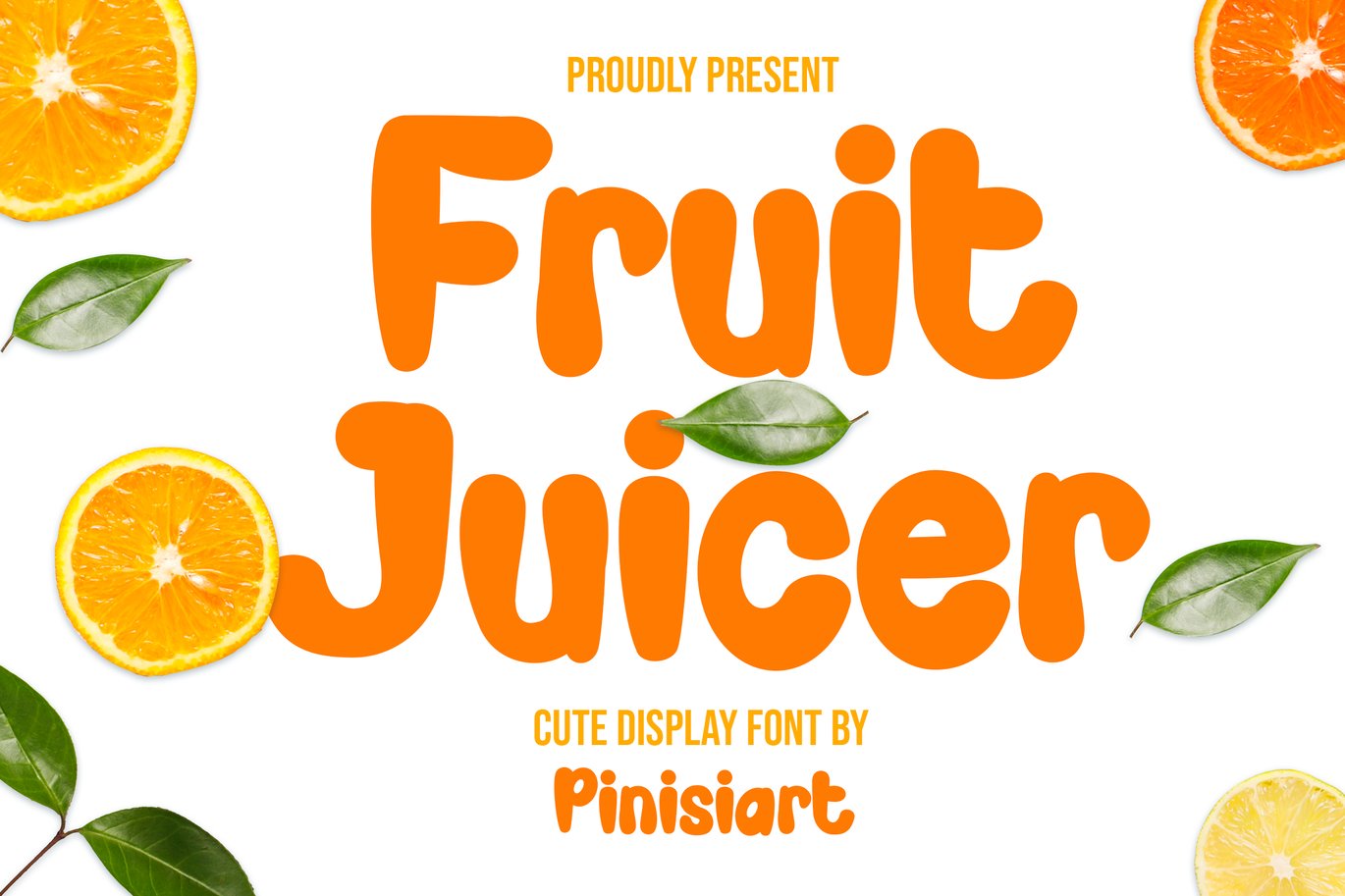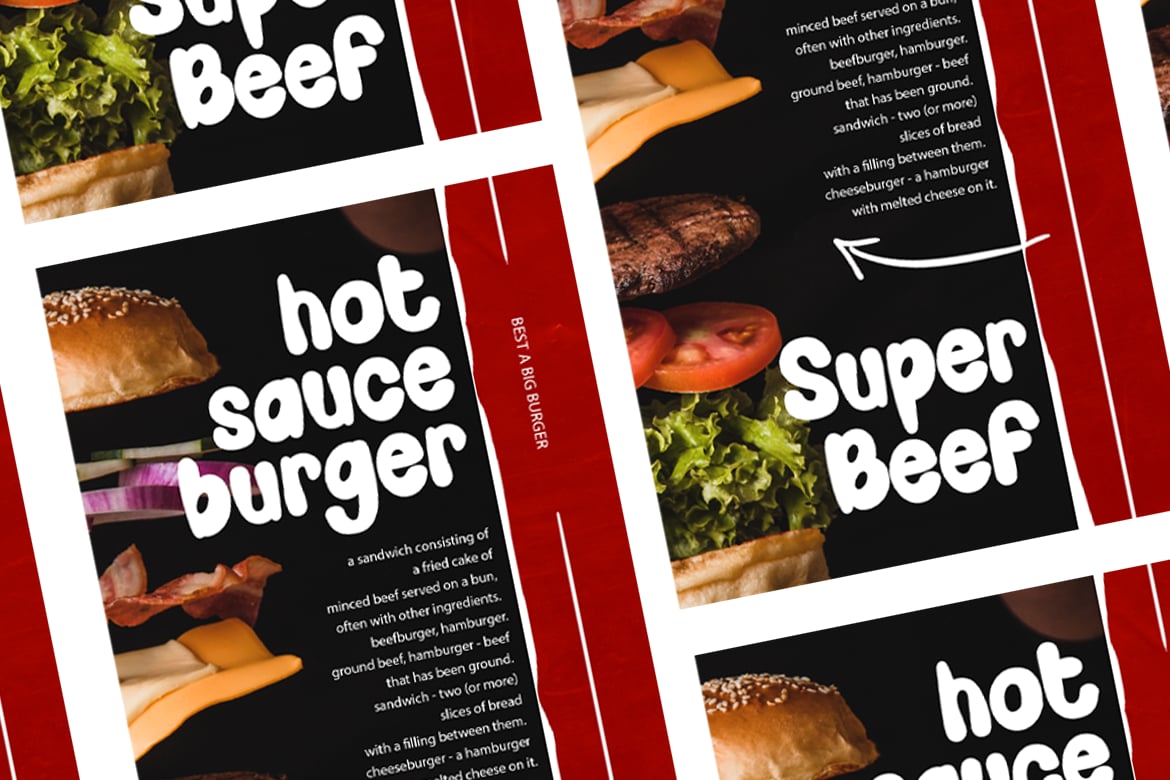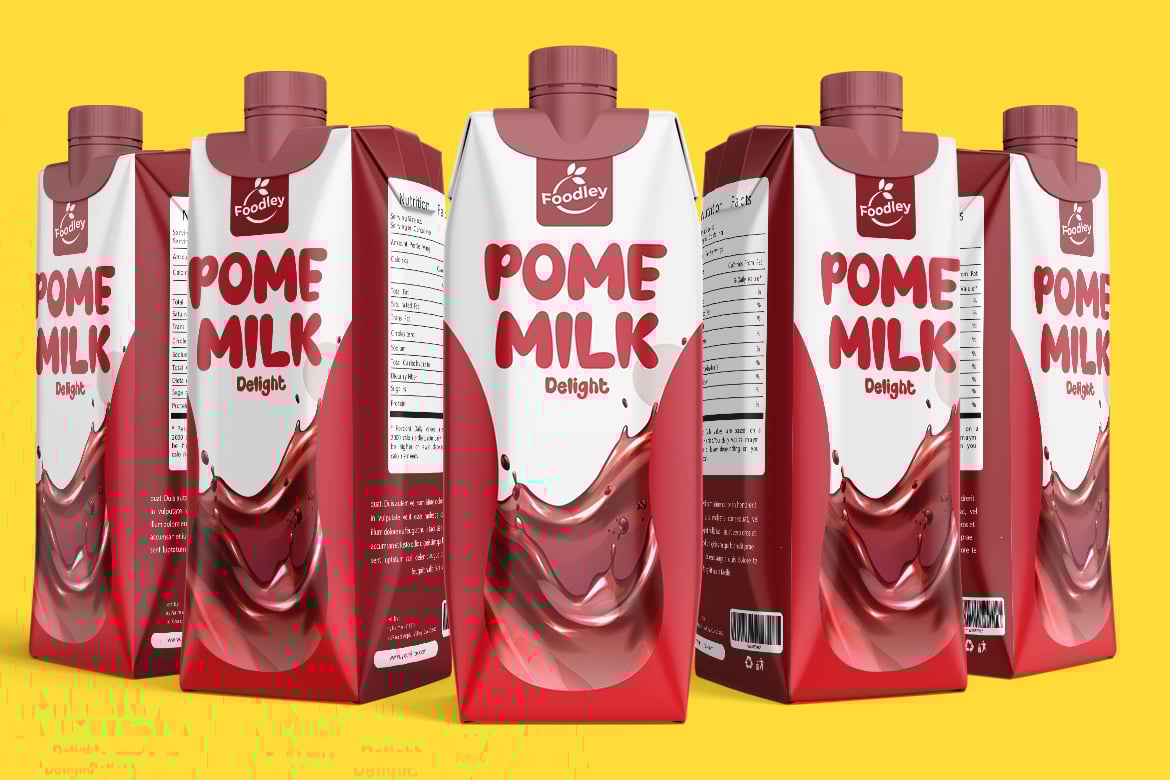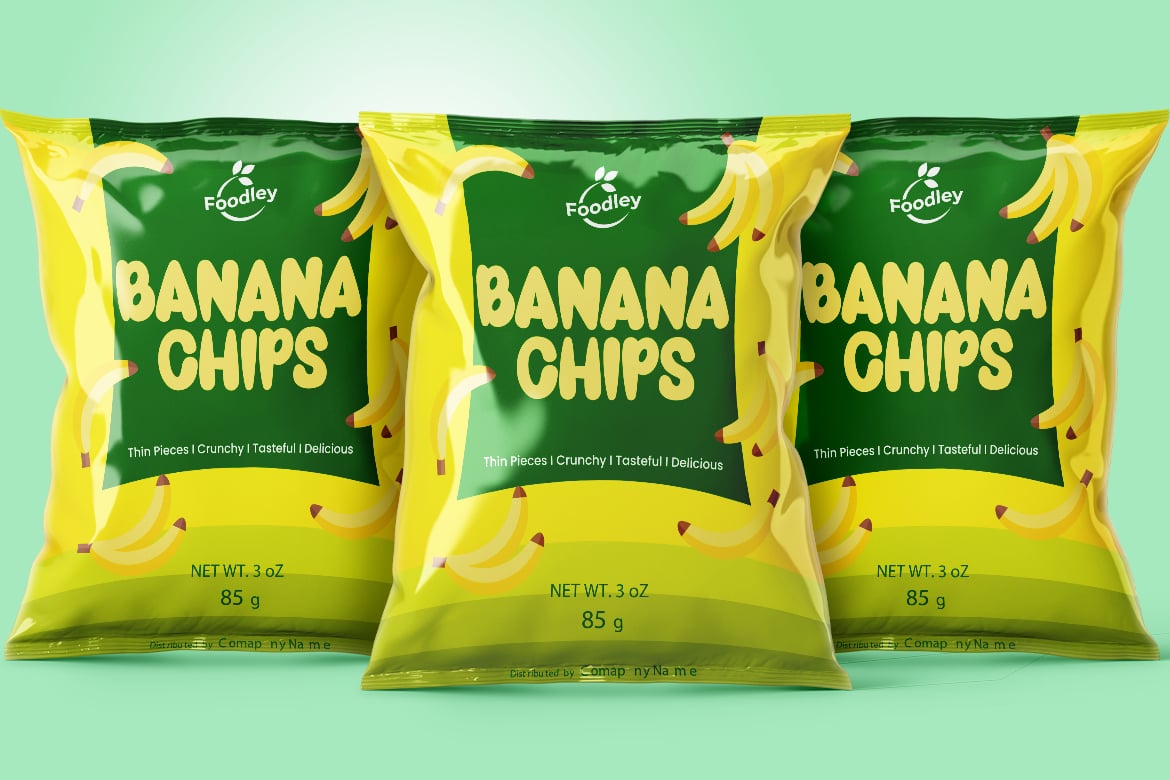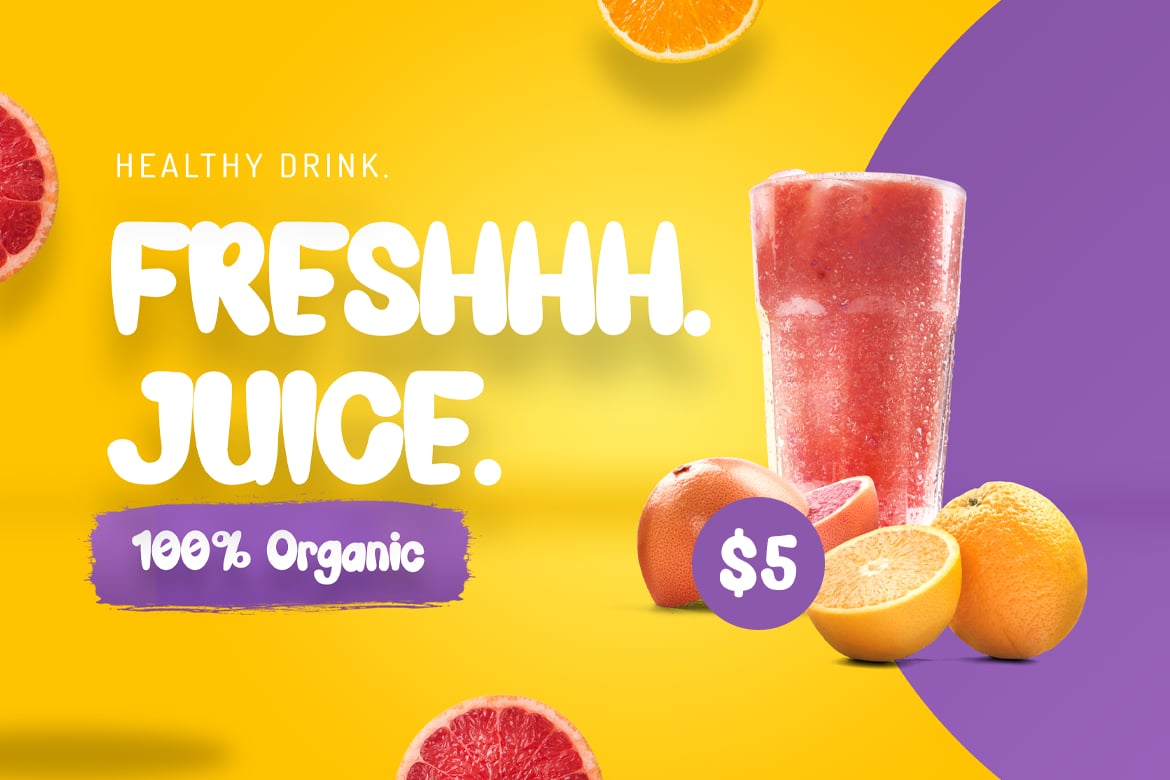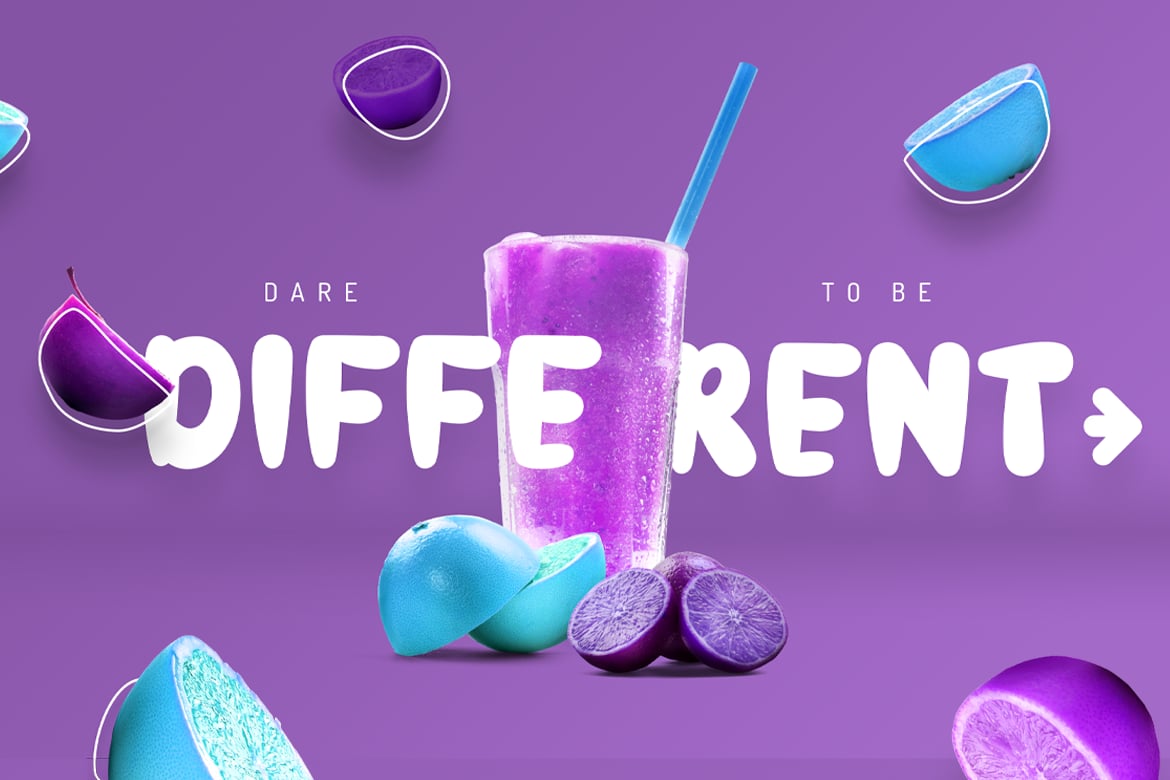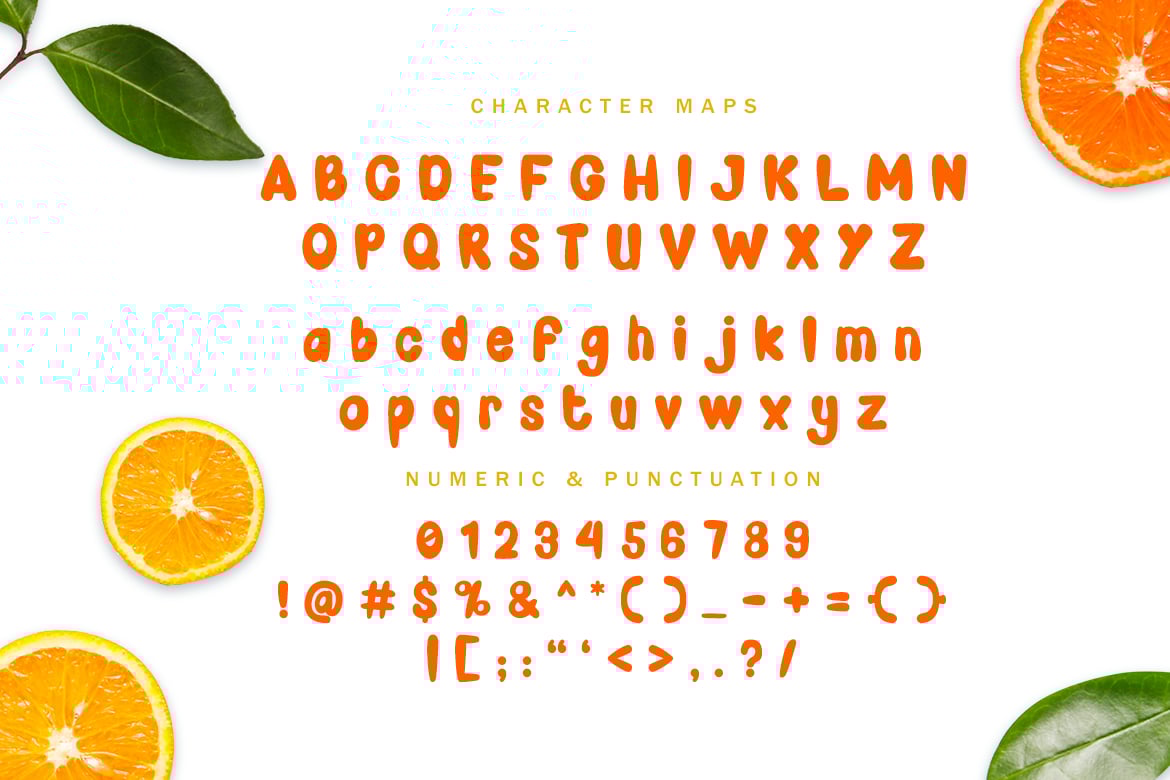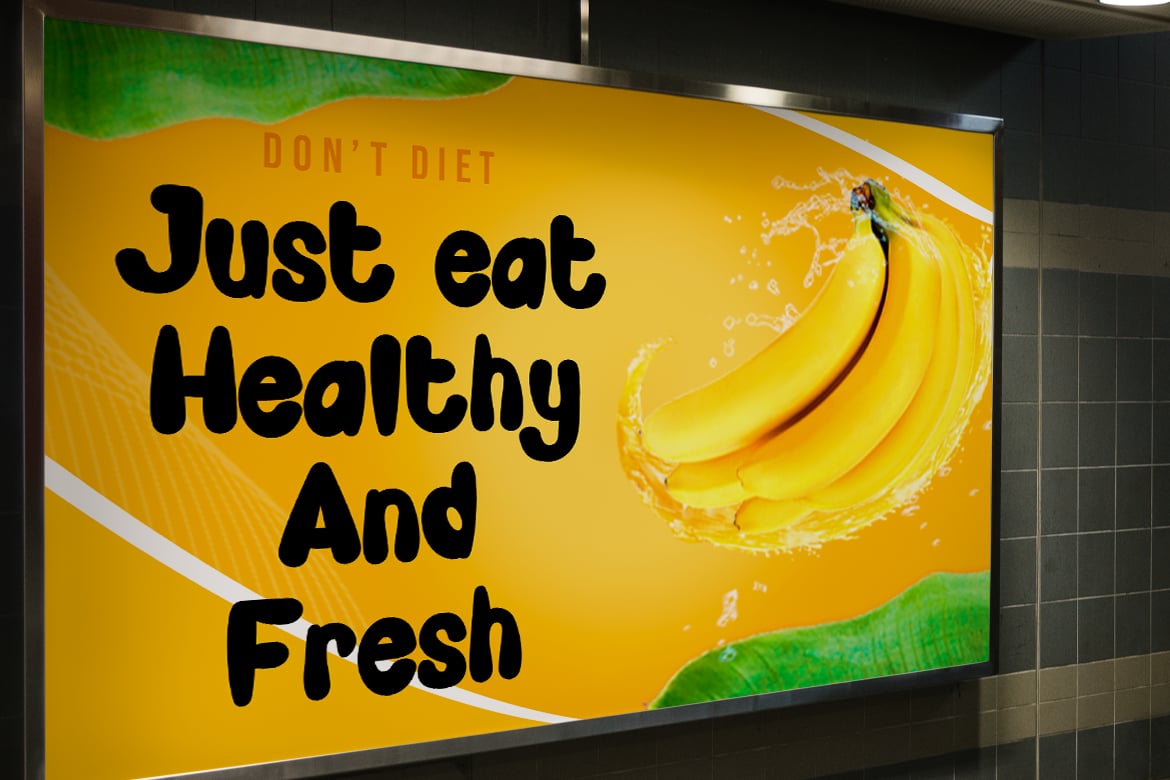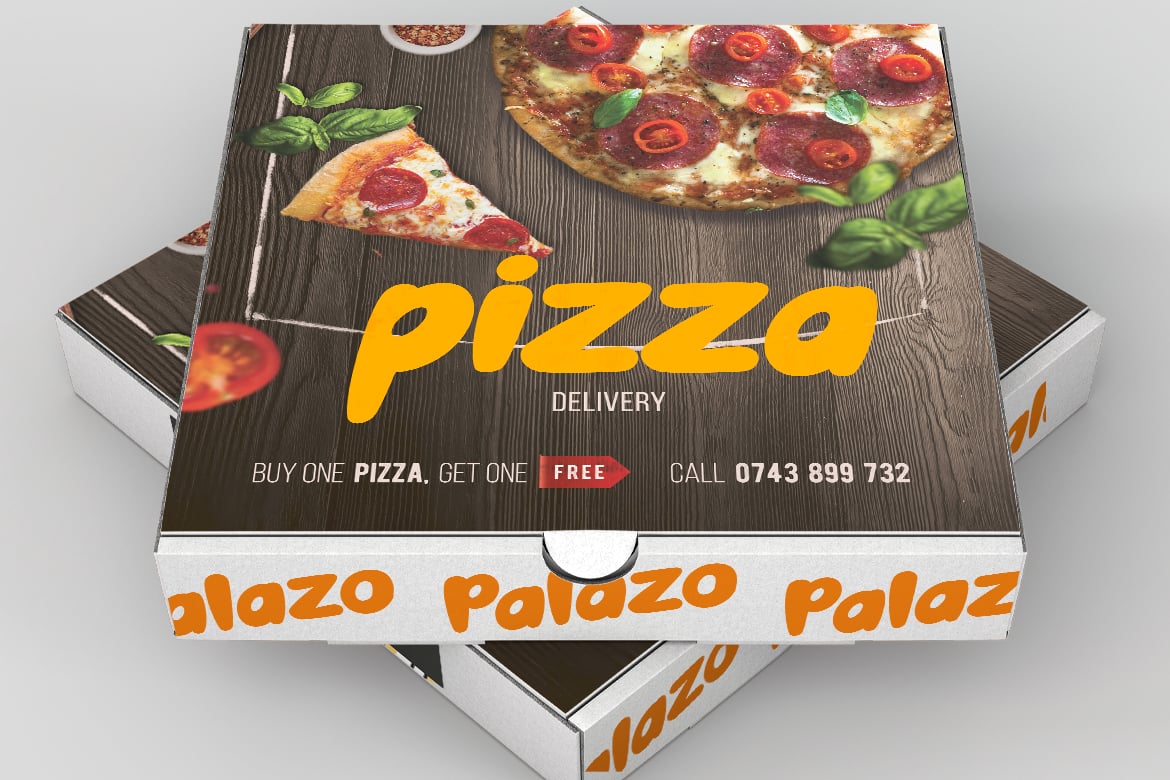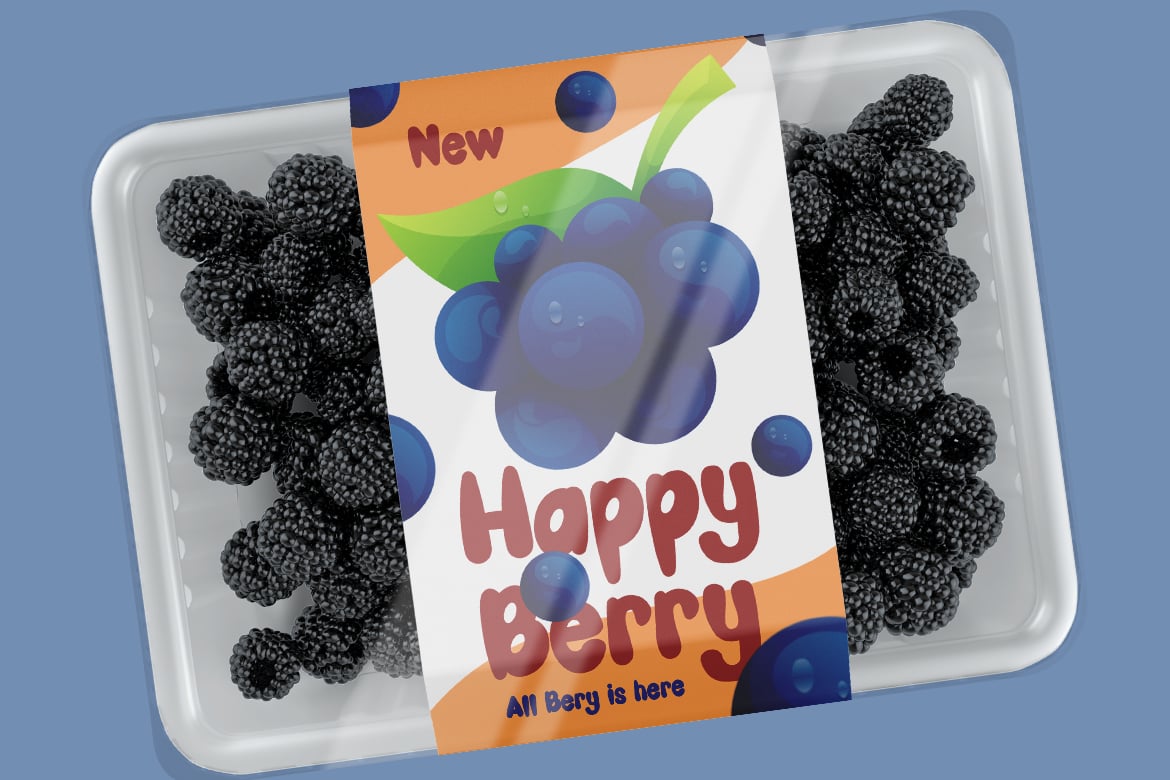
Fruit Juicer – cartoon font
Fruit Juicer – Cartoon font
Fresh and inviting with lots of energy and vitamins. Fruit Juicer will spice thing ups with positivity.
Suit perfectly for organic children books market, food packaging , stationary, school supplies font, poster, movie title, youtube covers, youtube thumbnails, social media page covers and so on…